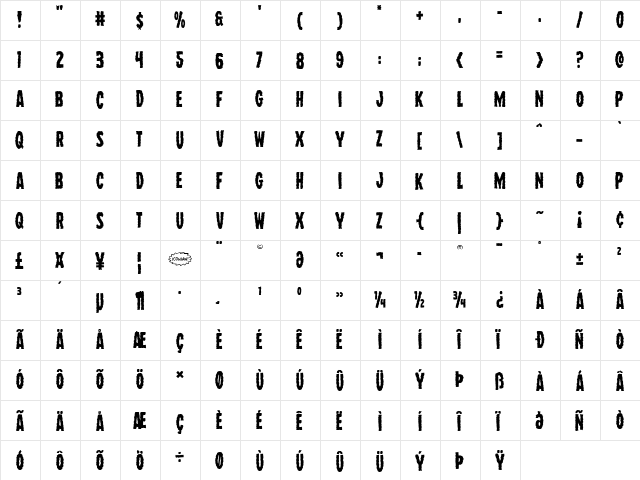
Wolf Brothers Staggered Regular
Design Context for Wolf Brothers Staggered Typeface
Wolf Brothers Staggered is a composed and adaptable typeface that performs quietly and consistently across a wide range of design contexts.
Pro Tip: Use Wolf Brothers Staggered in both headline and body roles to test its range before committing to a single application.